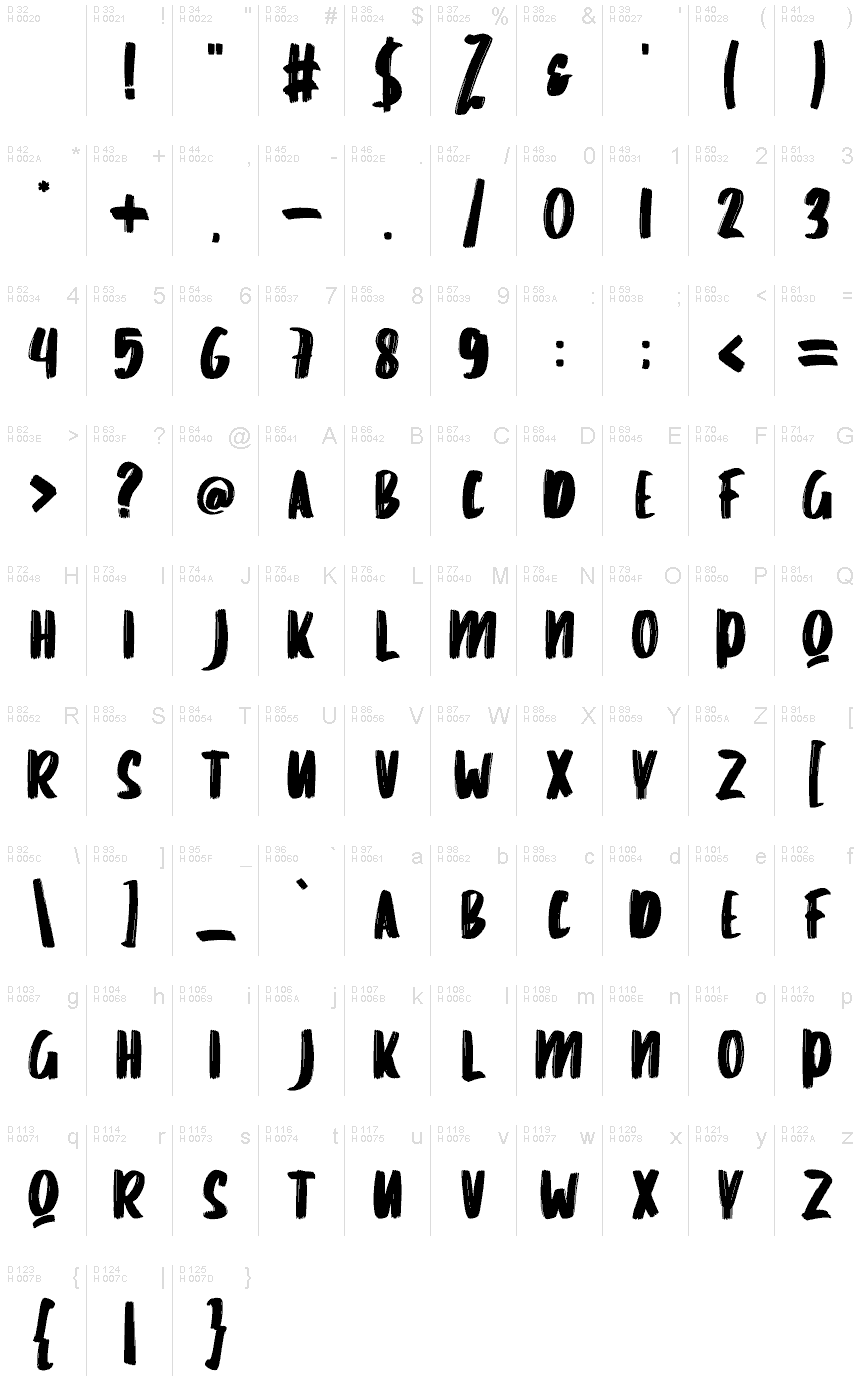
Raqgar
Raqgar font, designed by Skiiller Studio, is a condensed brush display font with an expressive style. Its textured appearance and modern aesthetic give it an artistic flair which designers can comfortably work with. Raqgar makes connecting the consumer to the product or service easy with its transparent intent.